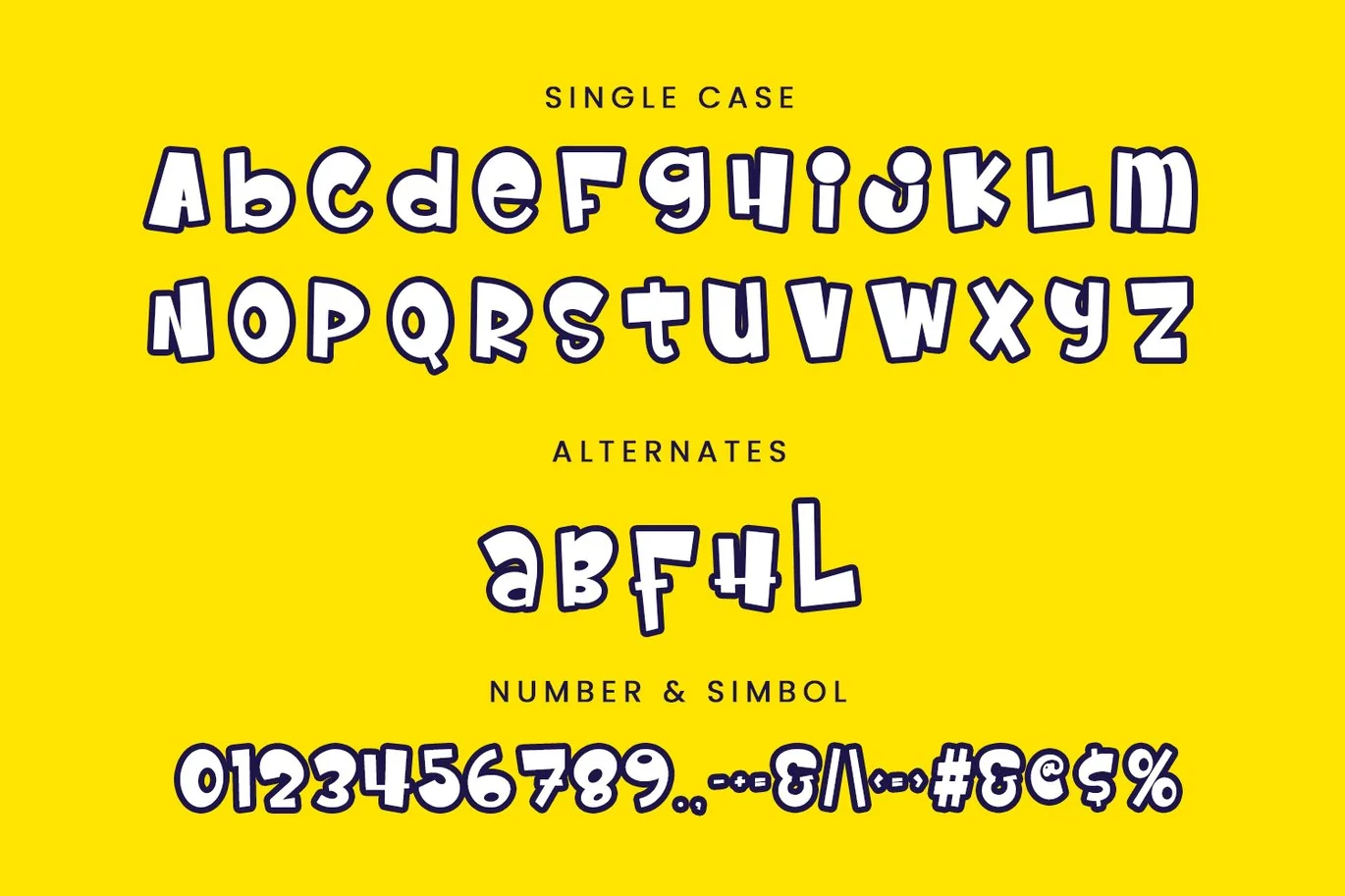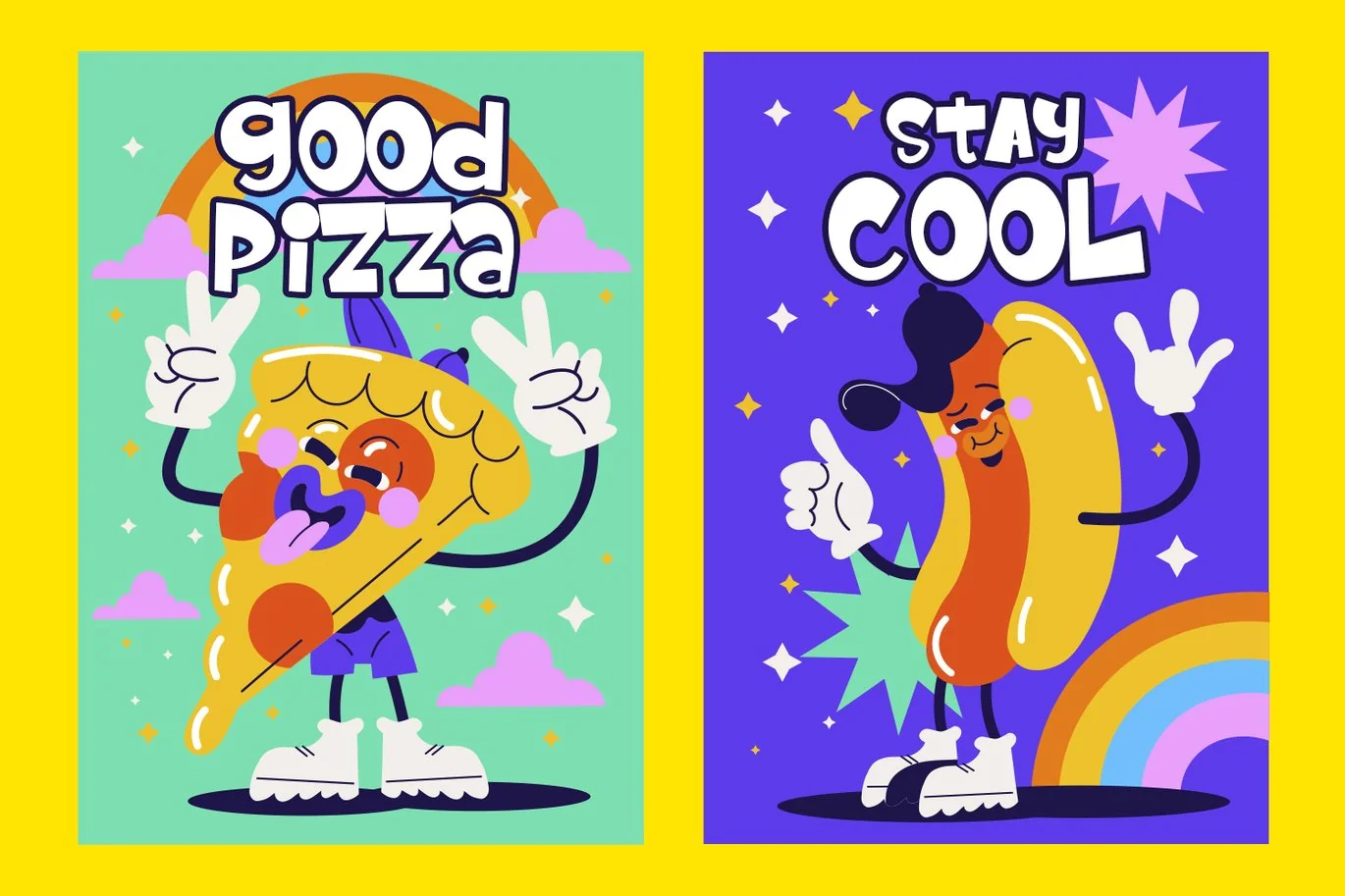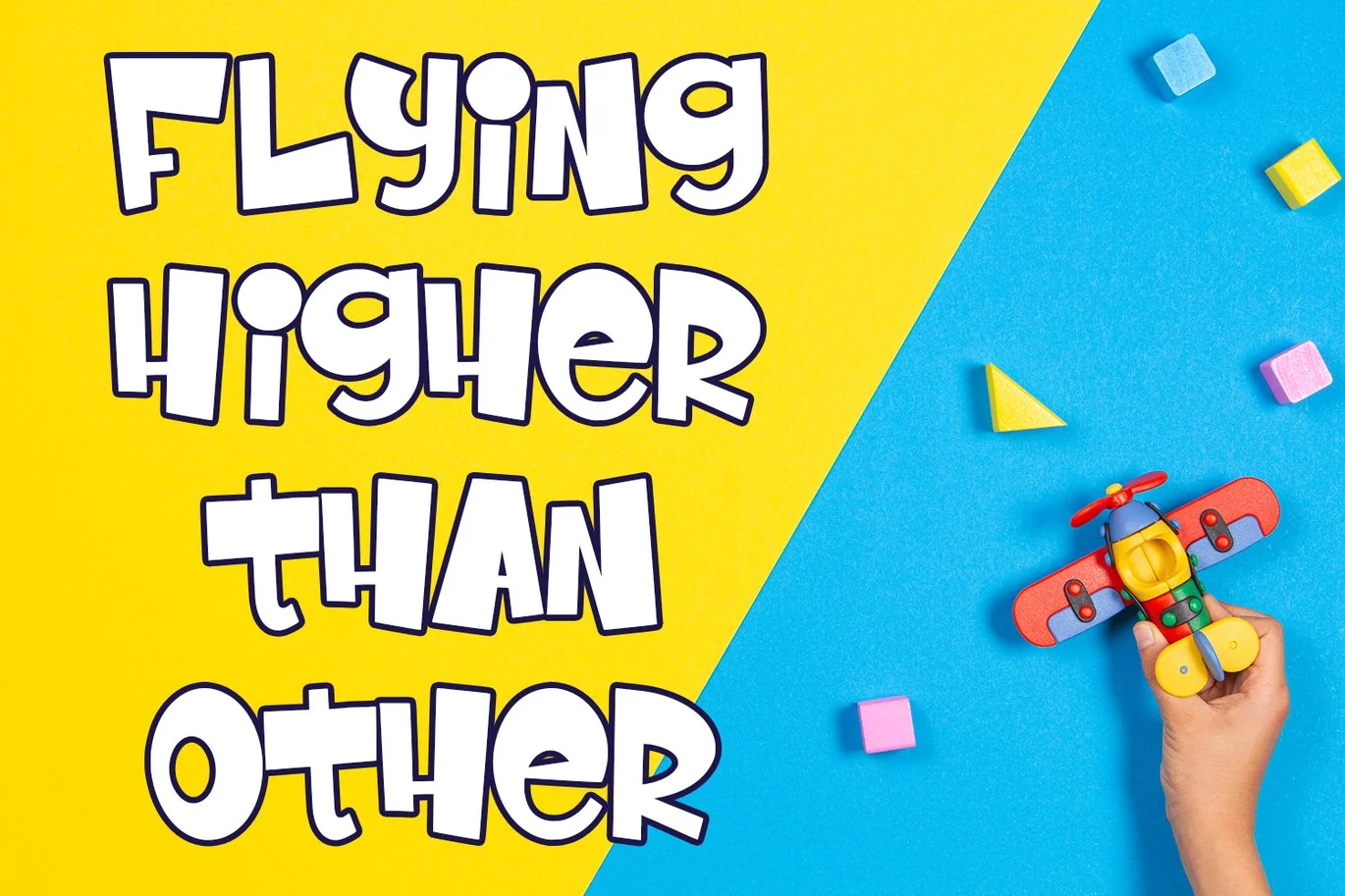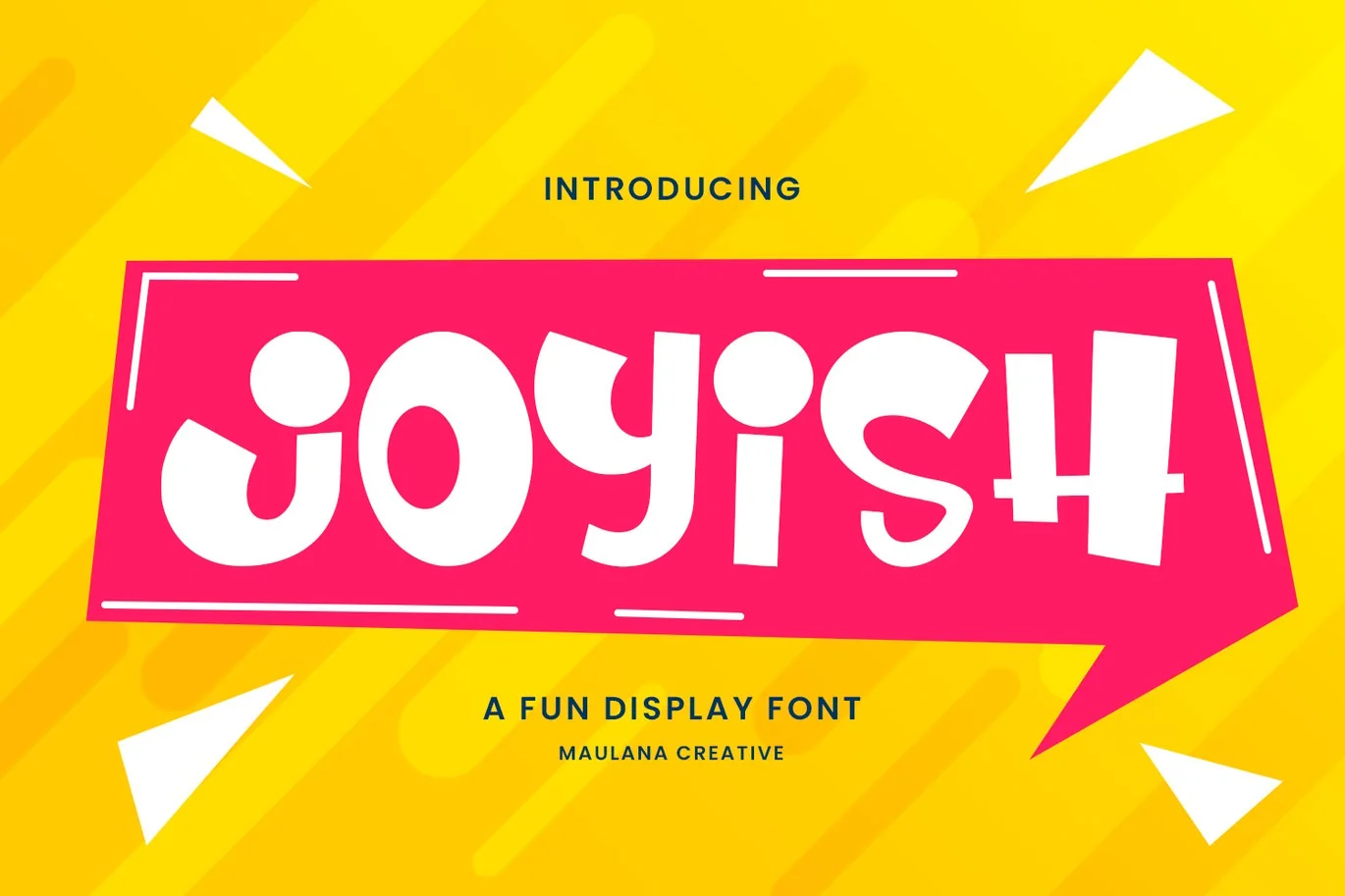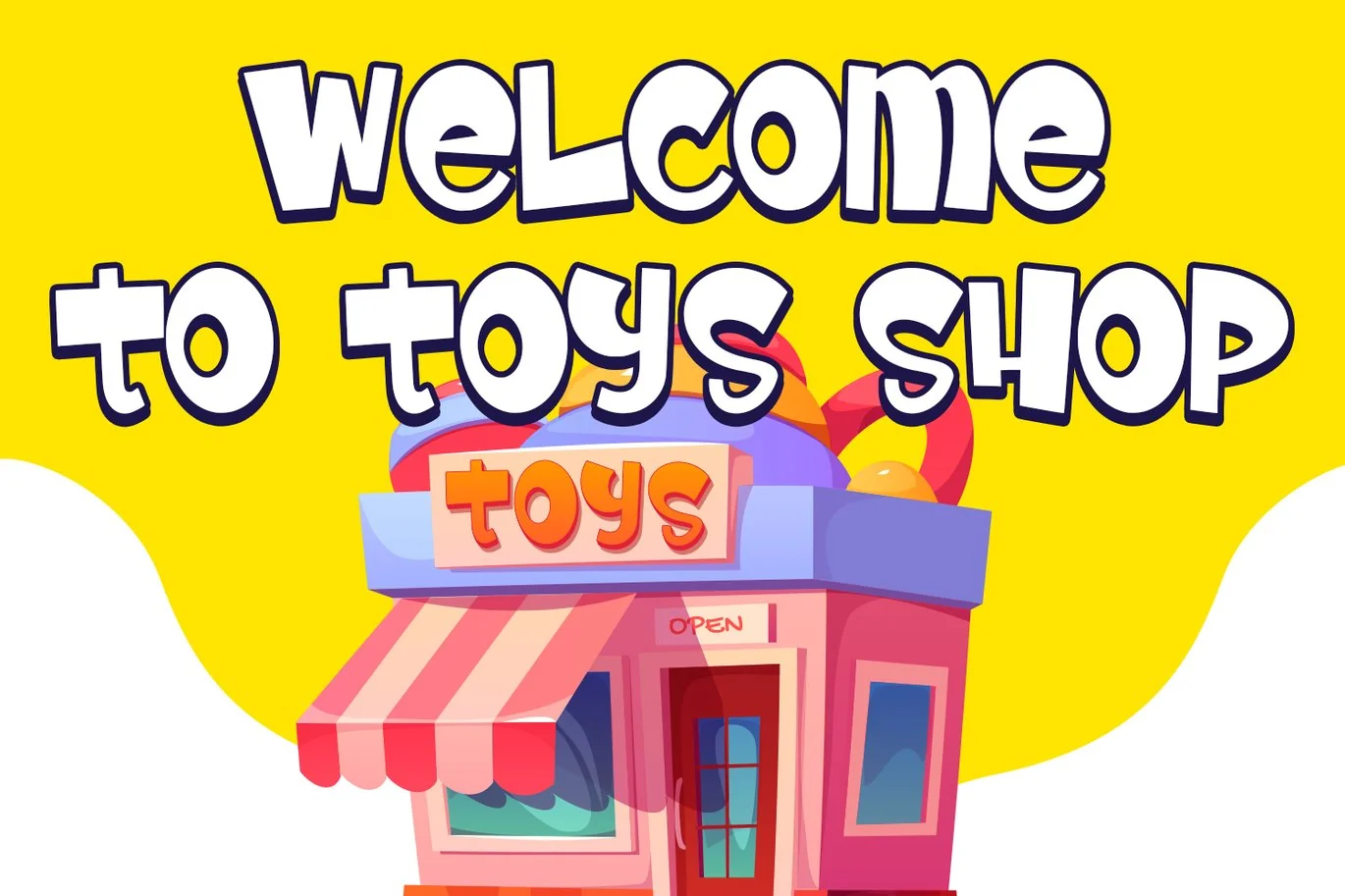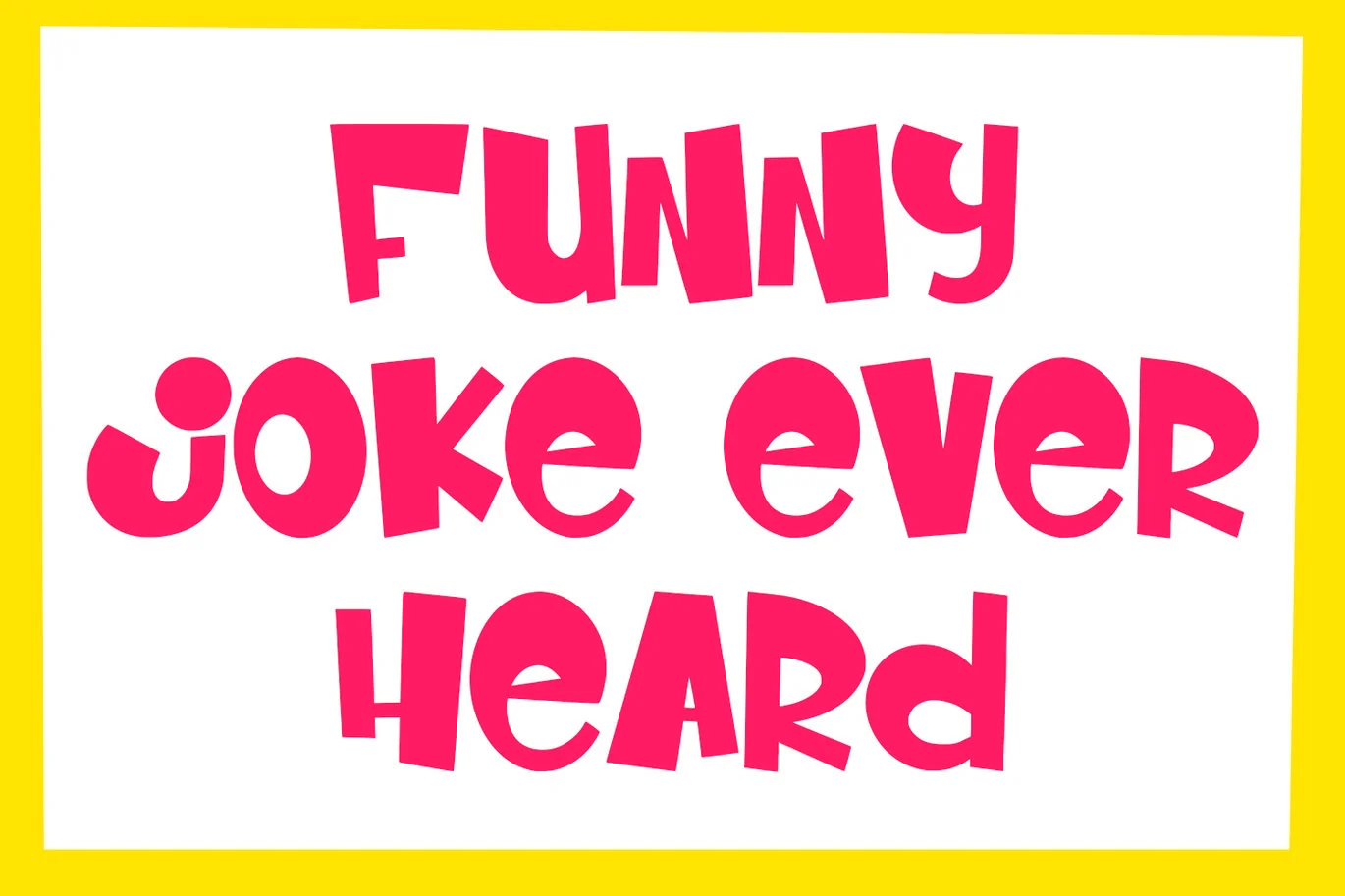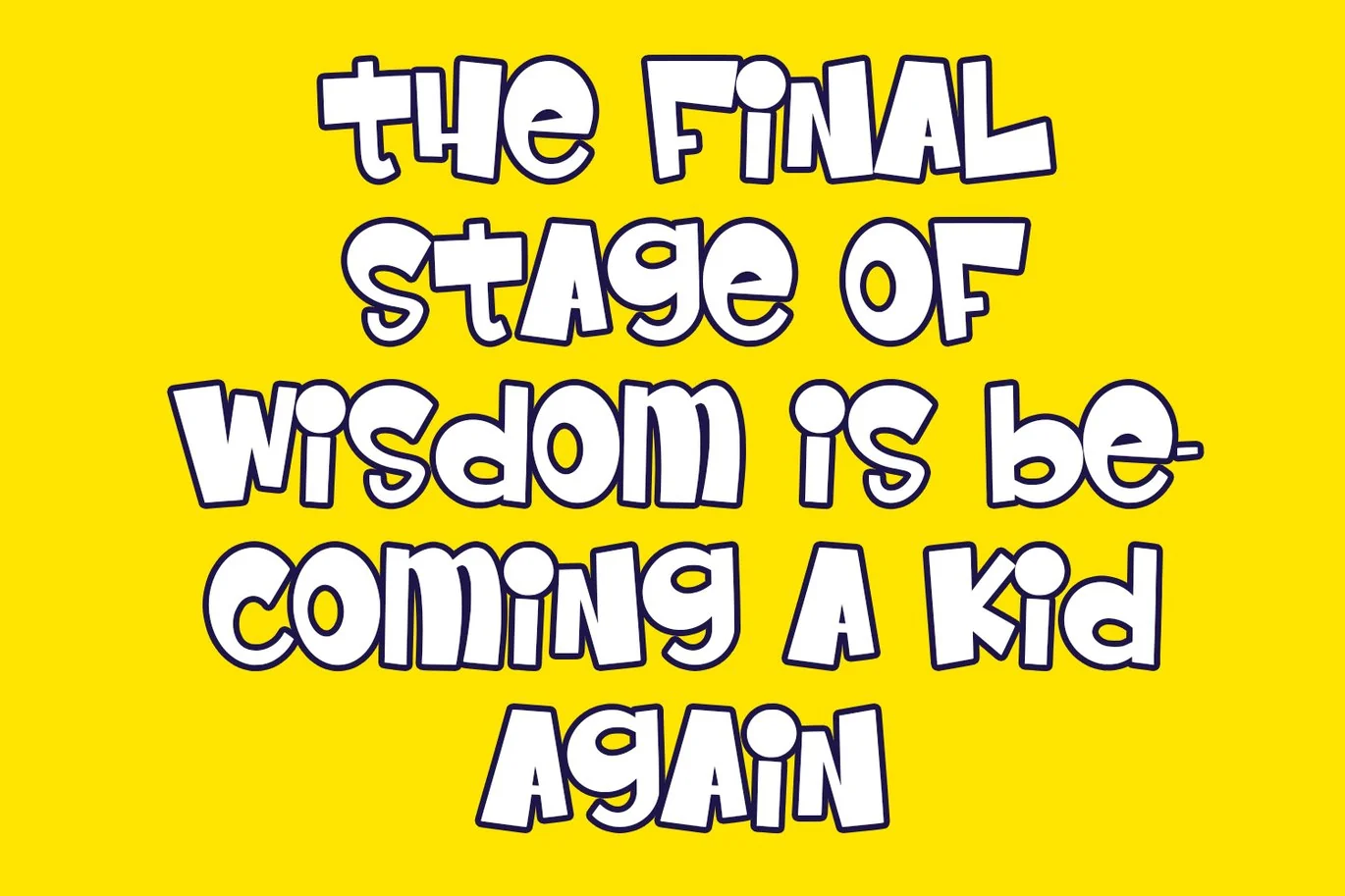
Joyish Fun Diplay Font
Joyish fun display font. Bold stroke, fun character with a bit of ligatures and alternates. To give you an extra creative work. Joyish font support multilingual more than 100+ language. This font is good for logo design, Social media, Movie Titles, Books Titles, a short text even a long text letter and good for your secondary text font with script or serif. Make a stunning work with Joyish graffiti display font.